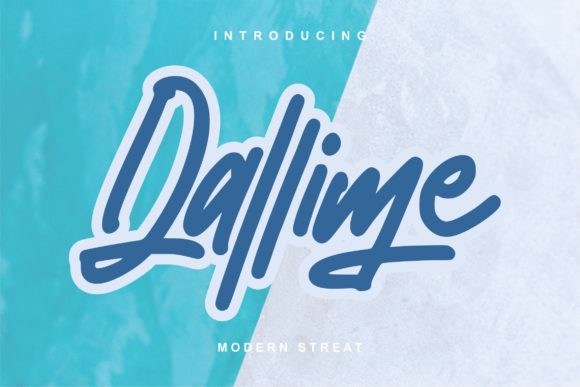
Welcome to the world of Dallime, a tantalizing script font that dances across your screen with unparalleled elegance. Step into a realm where the written word transforms into a mesmerizing tapestry, captivating every gaze.
Dallime is the epitome of handwritten grace, effortlessly blending the timeless allure of calligraphy with a modern twist. Each stroke is a testament to its creator's artistry, flowing seamlessly from one letter to the next. Whether you're crafting heartfelt love letters or designing captivating logos, Dallime weaves its magic into every word, leaving an imprint of sophistication and charm.
Its versatility knows no bounds, adapting effortlessly to a myriad of creative endeavors. Picture letterheads adorned with Dallime's delicate curves, adding a touch of refinement to your business correspondence. Envision the covers of novels adorned with its graceful script, hinting at the captivating tales within. Dallime transforms the mundane into the extraordinary, elevating your designs to new heights.
Indulge in the sensory delight of Dallime. Its soft, sweeping lines caress your eyes, creating a soothing and inviting atmosphere. Its subtle imperfections lend authenticity, adding a touch of warmth and personality. With Dallime, every word becomes a masterpiece, a testament to your impeccable taste and unwavering style.
So, why settle for ordinary when you can embrace the extraordinary? Embark on a creative journey with Dallime, where every letter holds the power to inspire, captivate, and leave an indelible mark. Let your words dance with elegance and your designs shimmer with sophistication. Dallime awaits, ready to unleash your creativity and enchant the world with your handwritten masterpieces.